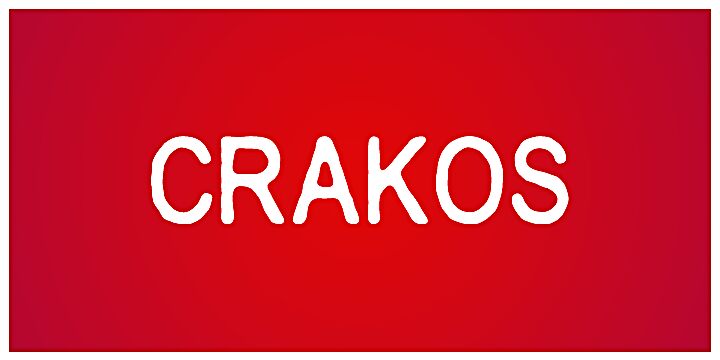
Crakos by Carlos Matteoli is a free graffiti display font with tall, rounded capitals and the loose wobble of hand-drawn marker lettering, plus compressed spacing that makes words feel densely packed. Uneven joins, pinched curves, and shifting widths keep the alphabet visibly restless.
Posters and music merchandise make good use of its broad, dark strokes, especially for streetwear, skate culture, and independent event graphics with an informal urban edge. On snack packaging and casual brand identities, the irregular silhouettes can turn a name into a graffiti-style signature rather than a conventional wordmark.